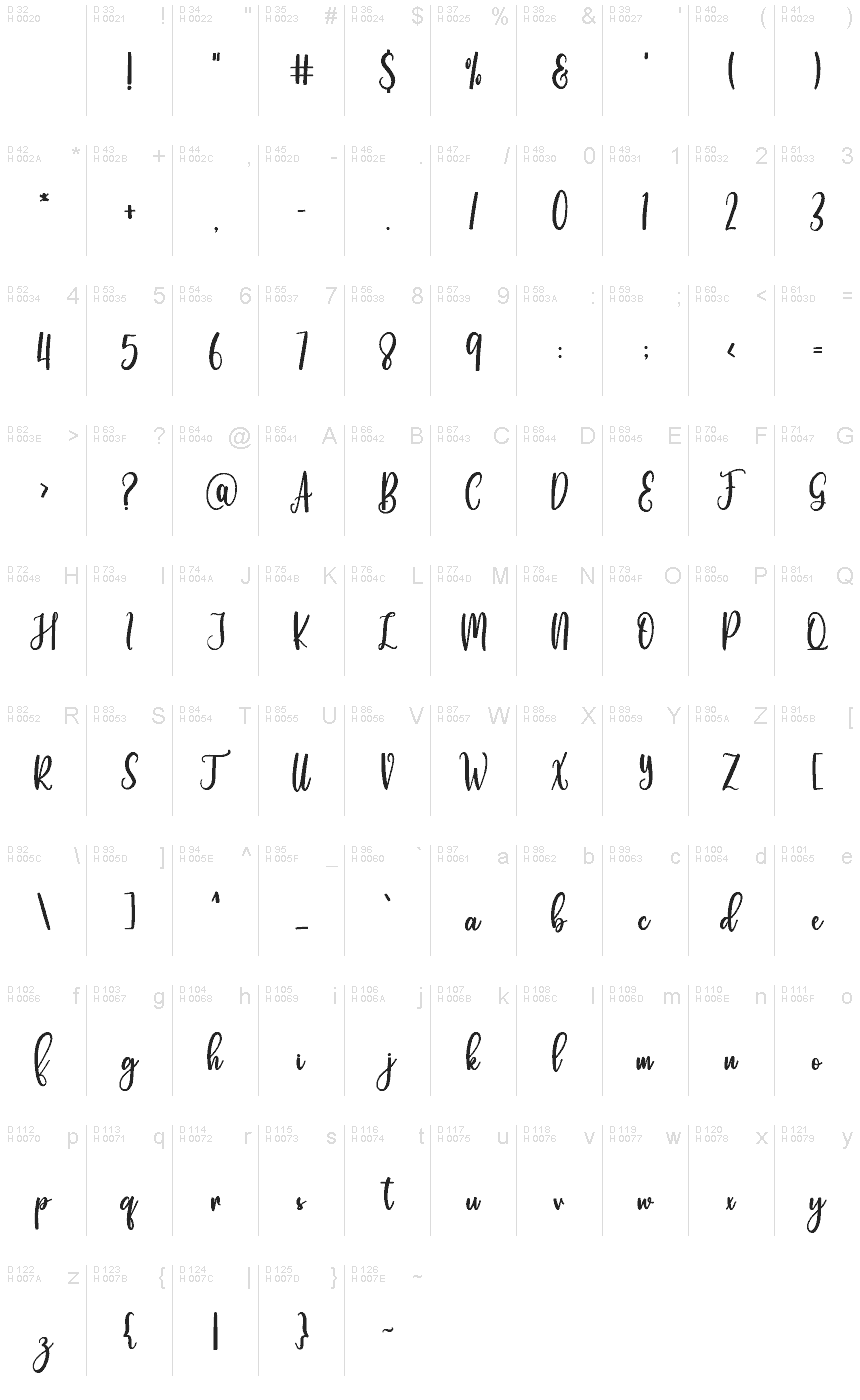
Notebook Planner
Notebook Planner font by Goodrichees is a free handwritten font with a relaxed and natural design. It features flowing and elegant letters in a condensed style maintaining an overall casual and approachable feel. Light stroke weights characterizes this modern script that can help give creative designs a personal touch.
Use this free font to design travel blogs, planners covers, scripted book titles, personalized social media content, branding projects for fashion or beauty stores, banners, self-development planners, invitations cards for weddings and other events.